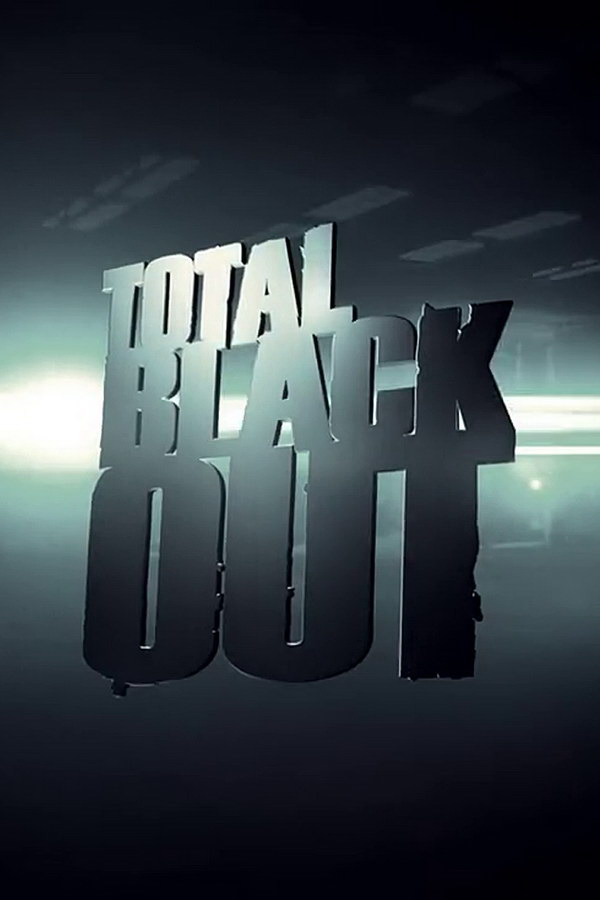
Total Blackout Font
The TV series title in the poster likely utilizes the Impact font, a sans-serif typeface designed by Geoffrey Lee in 1965 and made available by the Stephenson Blake foundry. This commercial font can be purchased here.